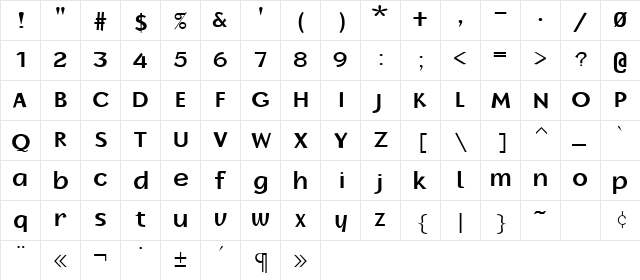
Ladino Normal
Design Context for Ladino Typeface
Ladino is a composed and adaptable typeface that performs quietly and consistently across a wide range of design contexts.